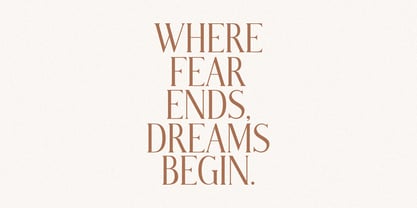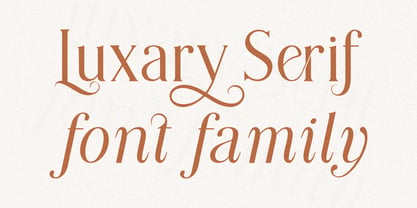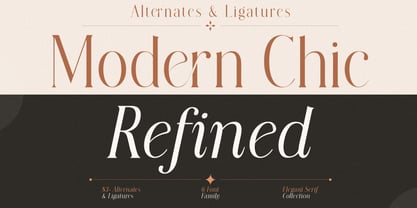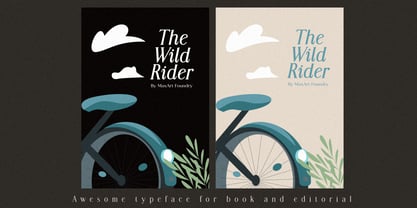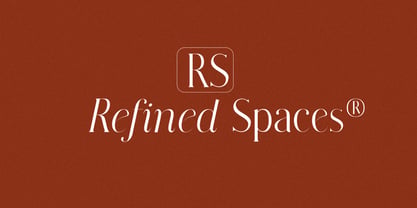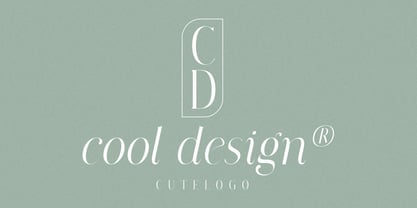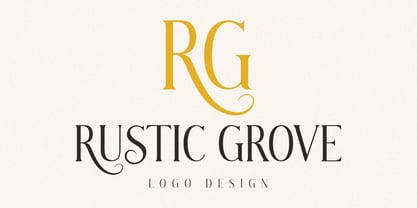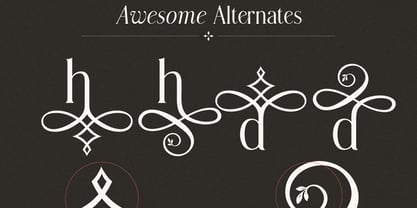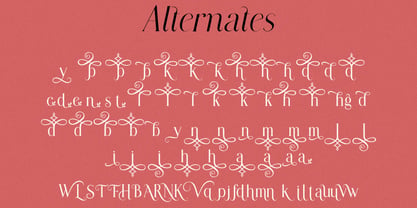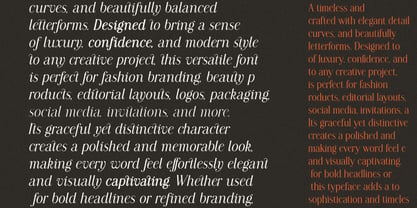
Modern Chic Refined
por MaxArt
La familia tipográfica Modern Chic Refined fue diseñada por Md Masud Rana y publicada por MaxArt. Modern Chic Refined contiene 6 estilos y opciones de paquete familiar. Más información sobre esta familia
Designed with a delicate balance of refinement, softness, and contemporary style and charming details. This serif font family is made to give your typography a beautiful editorial and premium feel and distinctive personality.
The family comes with "Light-Regular-and Bold" Plus matching Italic styles for different design needs. Mix and match these characters to create beautiful word shapes, unique headlines, elegant logos, and expressive typography.
With Multilingual Support and professionally crafted clean vector glyphs. It suitable for designers working on international branding and multilingual projects.
The Bold and Bold Italic styles are provided in their clean original character sets without alternates.
Font Family Includes:
* Light & Light Italic
* Regular & Regular Italic
* Bold & Bold Italic
* Alternates for Light & Regular
* Beautiful ligatures
* Multilingual Support
* Clean, professional vector glyphs
* Modern, chic & refined aesthetic
* Great for logos, branding & editorial design